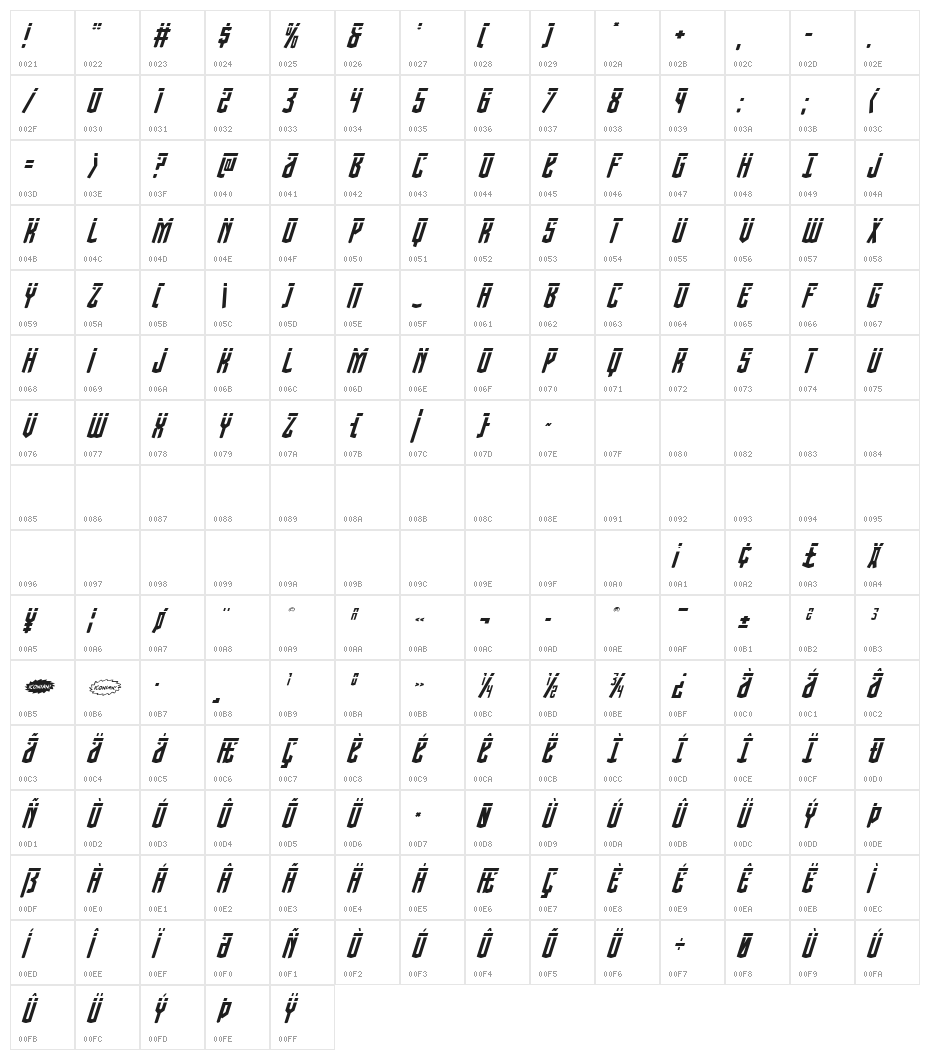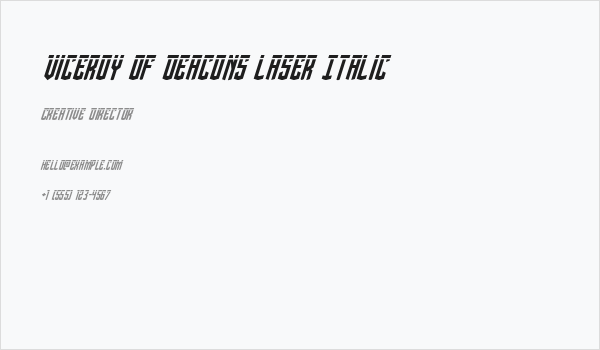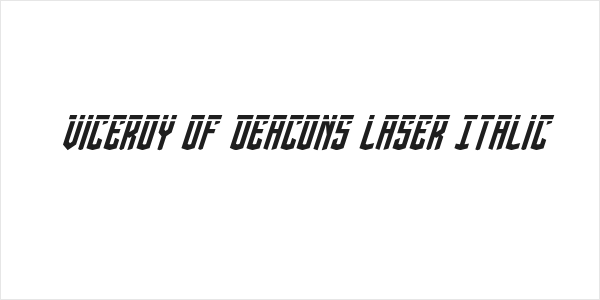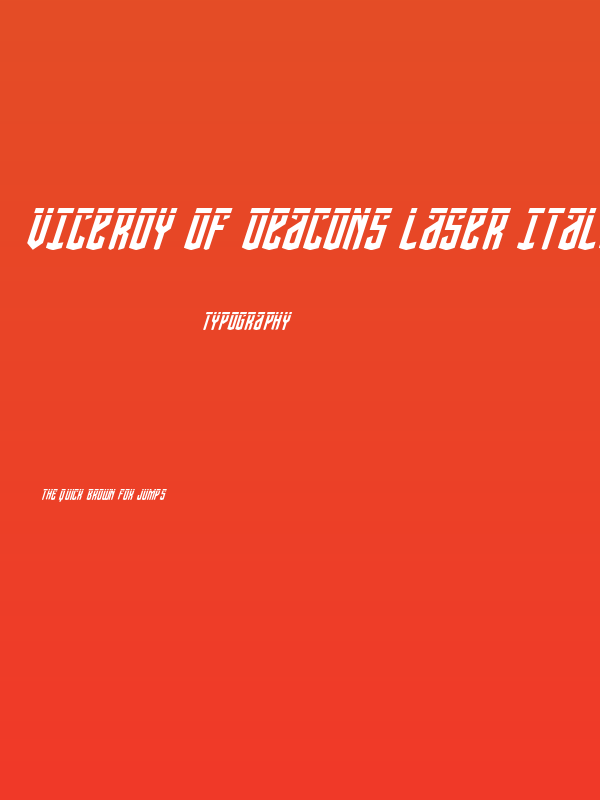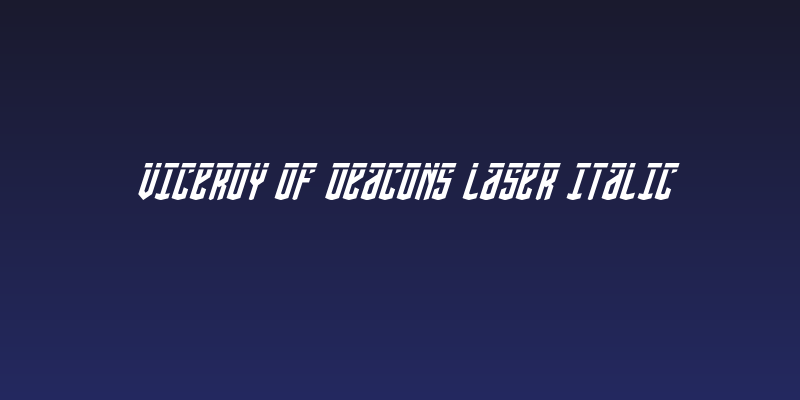
Viceroy of Deacons Laser Italic Font
Viceroy of Deacons Laser Italic Description
This font features a bold, angular design with a futuristic and dynamic appearance. The characters are sharply defined with a distinct slant, giving them a sense of motion and energy. The uppercase and lowercase letters maintain a consistent style, with each character exhibiting sharp edges and a geometric structure. The numbers and special characters follow the same angular theme, ensuring uniformity across the font. The overall aesthetic is modern and edgy, making it suitable for projects that require a strong visual impact.
| Proposed Projects | Ideal for sci-fi themed designs, video game titles, posters, and branding that requires a modern and edgy look. |